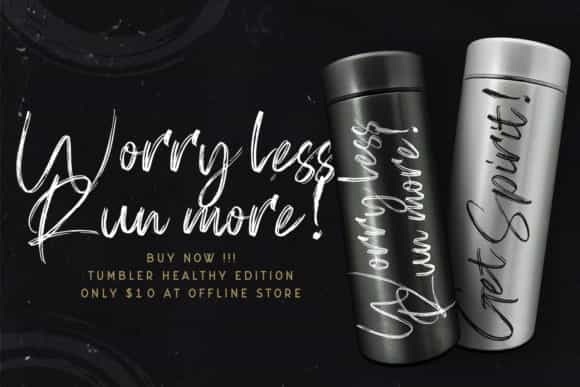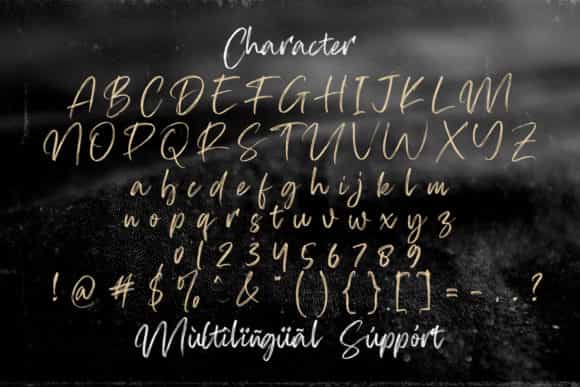
Discover Firsta Brush Font, part of the Brush Script collection—a versatile and unique font perfect for adding a personal touch to your projects. Download it for free and enjoy crafting designs with style, from invitations to social media posts. This font is available exclusively for personal use, giving you the freedom to create without limits. Unlock your creativity with Firsta Brush Font today!
Firsta is an alphabet typeface that comes from the design studio StringLabs. It’s a beautiful and fluid handwritten font that was created using the brush pen. Explore your creativity with it’s distinctive and stunning style, and elevate your designs to the top of the line!